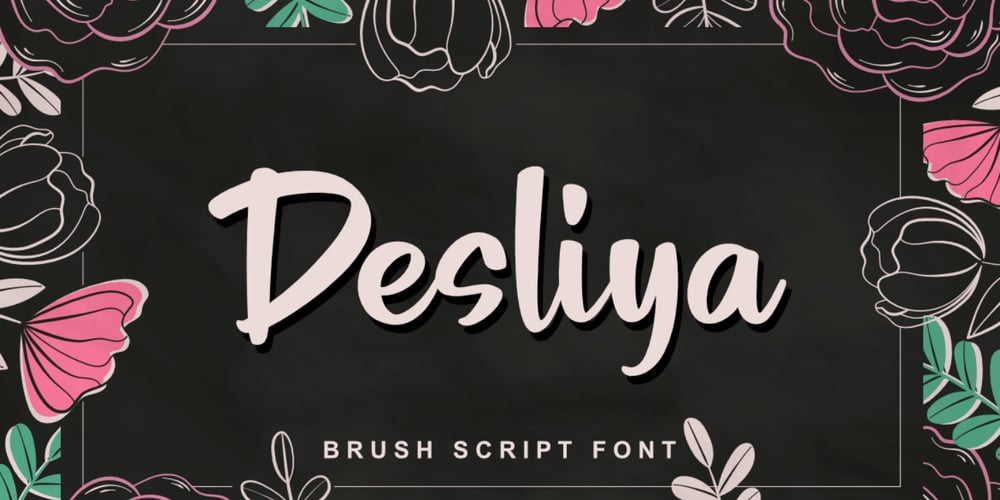
Desliya
Desliya font
Desliya Font Family was designed by Bayu Aji Fais Mursid and published by Bayuktx. Desliya contains 1 styles and family package options. Hello,Thank you for visiting my products, we will give you the best choice.Desliya a Brush Script Font, This font is made with a high premium quality level which you can use as flyers, quotes, posters, banners, packaging, merchandise, logotypes and much more.FEATURES :* Uppercase* Lowercase* Number* Punctuation* Multilingual* PUA Encode* OpentypeFILES INCLUDED :* DesliyaThank you